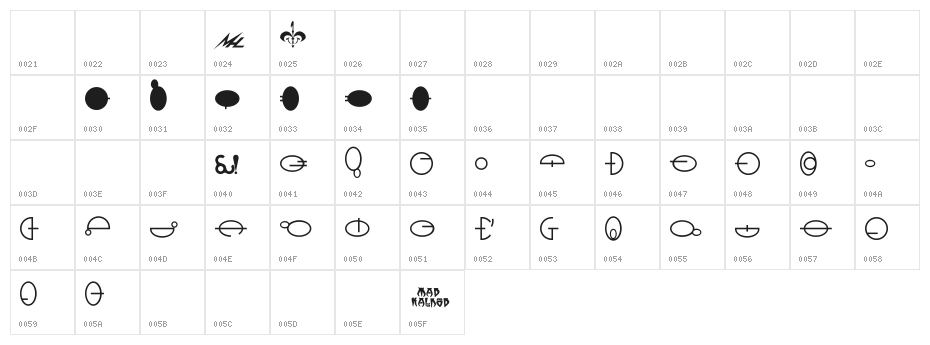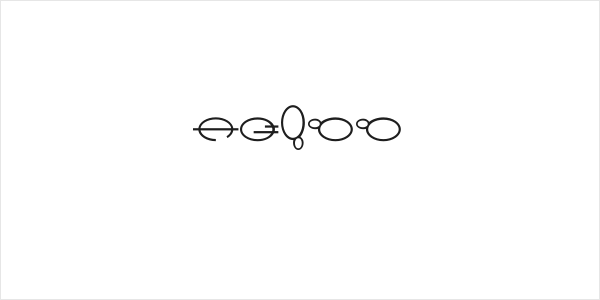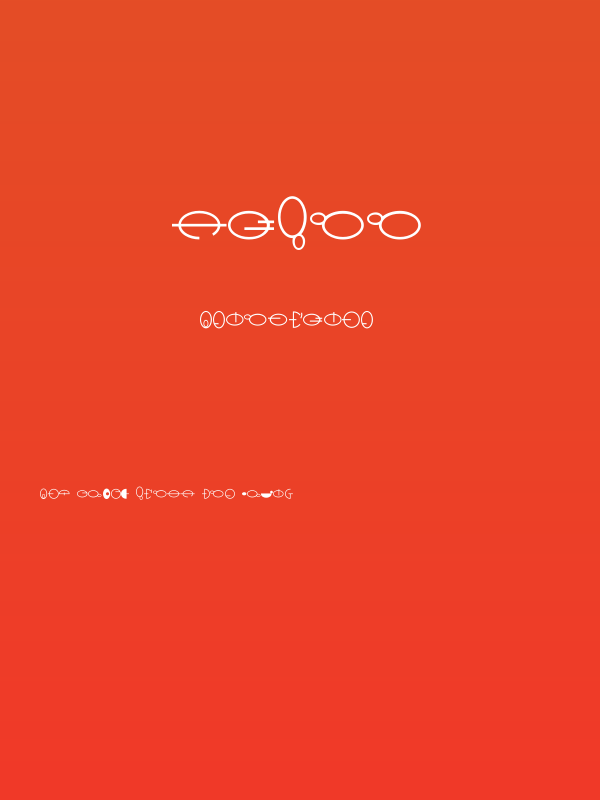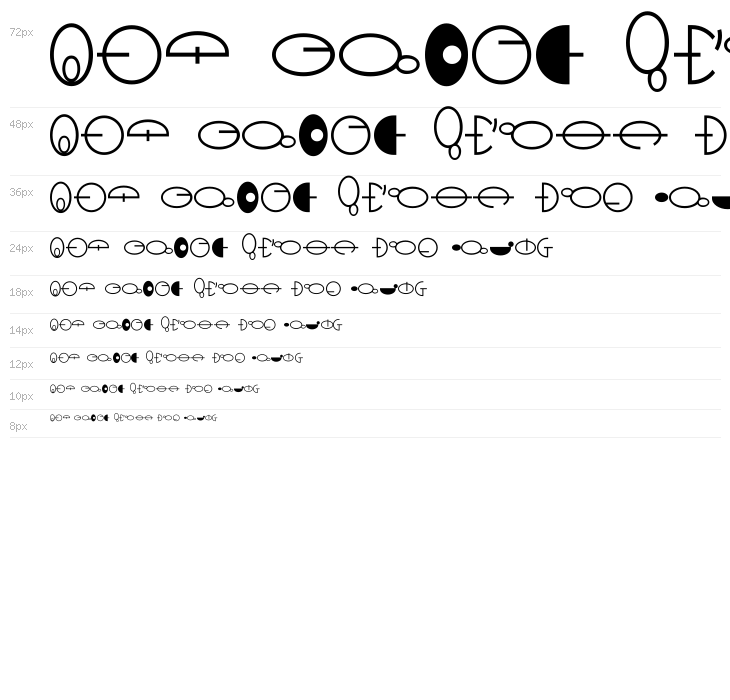
Naboo Font
Naboo Description
This font features a highly stylized, futuristic design with circular and elliptical shapes dominating the character set. Each letter is constructed with a combination of geometric forms, including circles, ovals, and lines, creating a unique and abstract appearance. The characters are interconnected with lines and dots, giving the font a cohesive and unified look. The overall aesthetic is reminiscent of alien or sci-fi themes, making it stand out as a decorative and artistic choice. The font's design is consistent across both uppercase and lowercase letters, maintaining its distinctive style throughout.
| Use Case | Logos, Posters, Titles |
| Proposed Projects | Ideal for sci-fi movie posters, video game titles, futuristic branding, and creative design projects. |